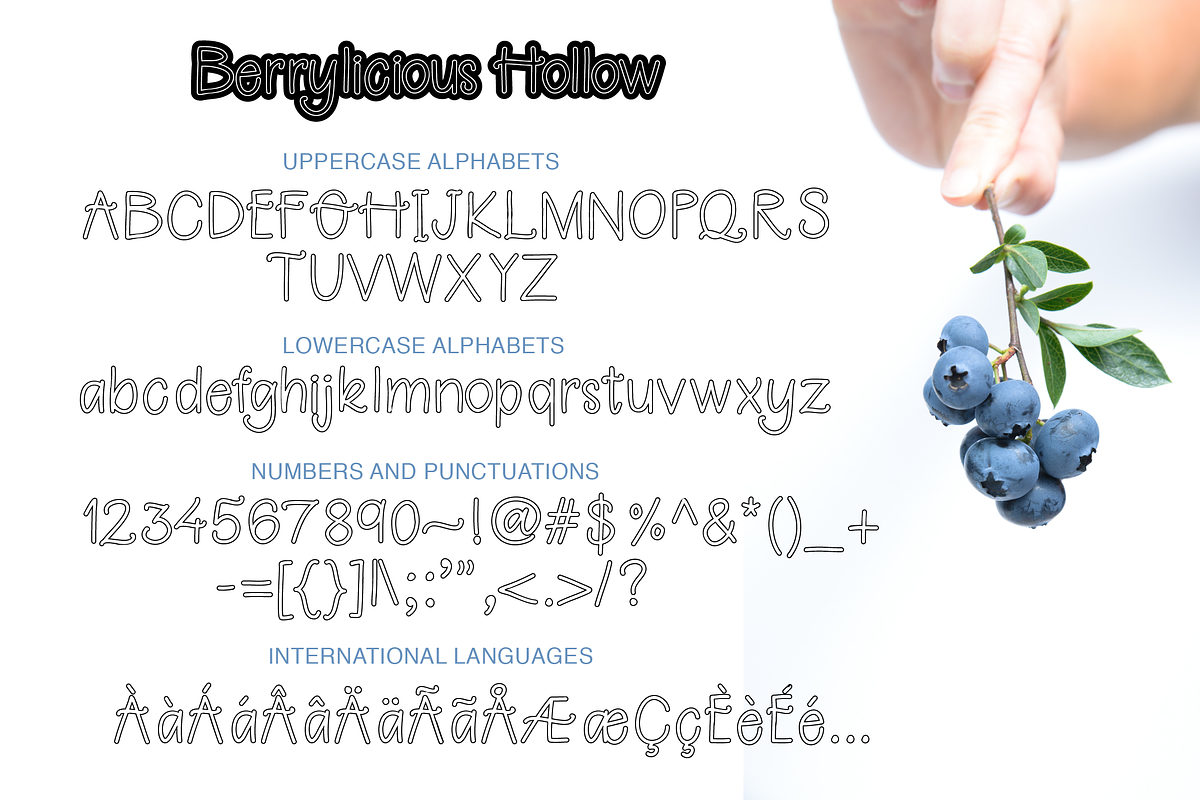
Berrylicious
Berrylicious is a super cute monoline font and is perfect for all kinds of branding projects, logos, greeting cards, overlay text on backgrounds and pictures, labels, save the date's etc.
This font is also great to use for pairing with a script font.